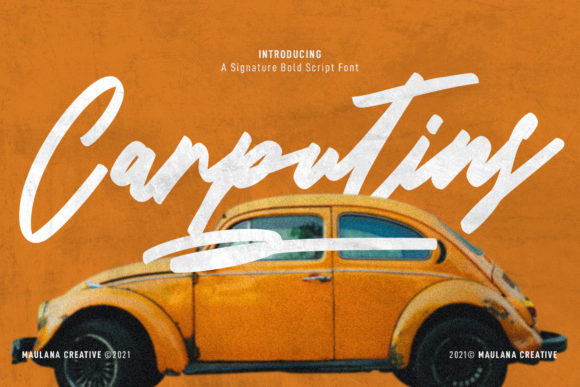
The Ultimate Guide to Carputins Signature Font
I’ll never forget the time I was working on a logo design project for a trendy new coffee shop. I had a clear vision of the look and feel I wanted to achieve, but I just couldn’t find the right font to bring it all together. That was until I stumbled upon Carputins, a casual script font that instantly elevated my design to the next level. In this article, I’ll share my experience with Carputins, its features, and how to make the most of it in your creative projects.
An Honest Review of Carputins
- ✨ Unique and eye-catching design: Carputins has a distinctive, hand-drawn feel that’s perfect for making your designs stand out.
- ✅ Highly versatile: This font is suitable for a wide range of applications, from logo design and social media posts to movie and book titles.
- ✅ Easy to read: Despite its casual, script-like appearance, Carputins is surprisingly legible, even at smaller font sizes.
Of course, no font is perfect, and Carputins has a few minor quirks to be aware of:
- 🤔 Limited use of uppercase letters: While Carputins does include uppercase letters, they’re not as stylized as the lowercase letters. This might be a consideration if you need a font with strong all-caps capabilities.
- ⚠️ Some glyphs may require manual adjustment: Depending on your design, you might need to tweak certain glyphs to get the perfect look. But trust me, it’s worth the extra effort!
- Experiment with OpenType features like ligatures and stylistic alternates to add some extra flair to your text.
The Story Behind Carputins
Carputins was designed with the goal of creating a friendly, approachable font that would bring a smile to people’s faces. Inspired by the casual, laid-back vibes of modern design, Carputins aims to add a touch of warmth and personality to any project.
| Is Carputins suitable for body text? | While Carputins is legible, it’s primarily designed for display purposes. For body text, you might want to choose a font with stronger readability. |
With its unique design, versatility, and ease of use, Carputins is an excellent addition to any designer’s toolkit. Whether you’re working on a logo, social media post, or book title, this font is sure to bring a touch of personality and style to your projects.